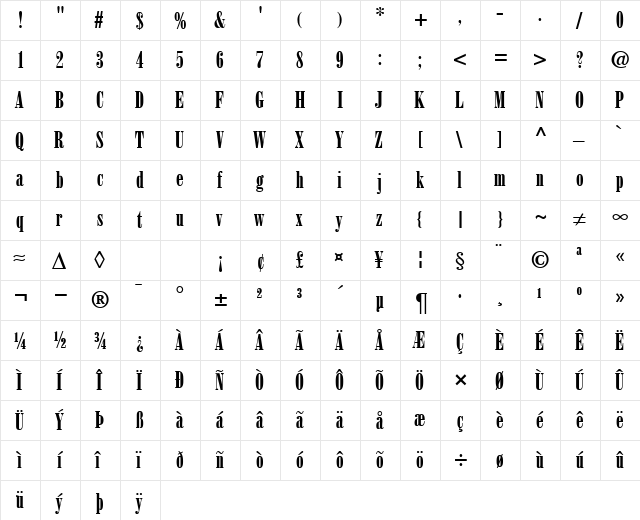
BodoniPosterCompressed DB Bold
Design Context for BodoniPosterCompressed DB Typeface
BodoniPosterCompressed DB takes a measured approach to typography — its balanced proportions and neutral character make it a reliable workhorse for both digital and print work. The heavy weight commands attention and anchors typographic hierarchies.